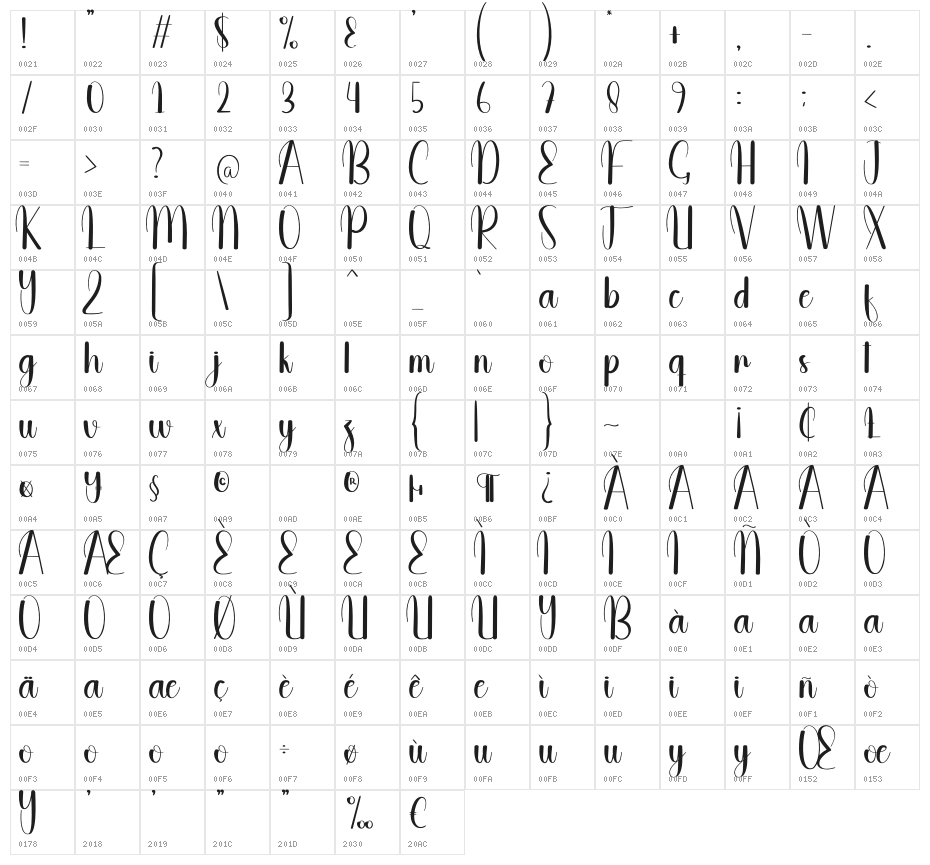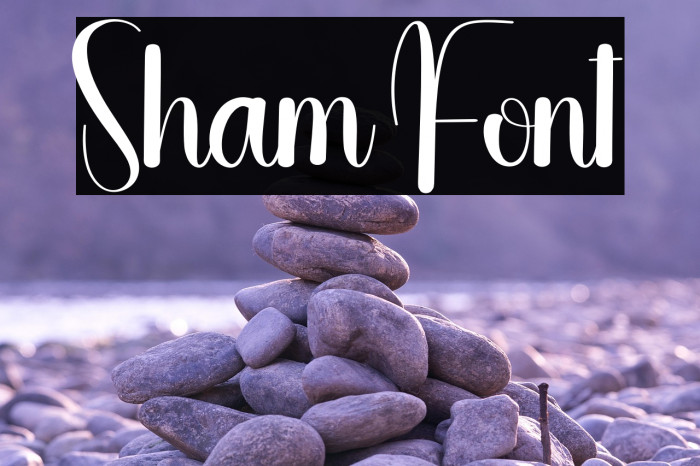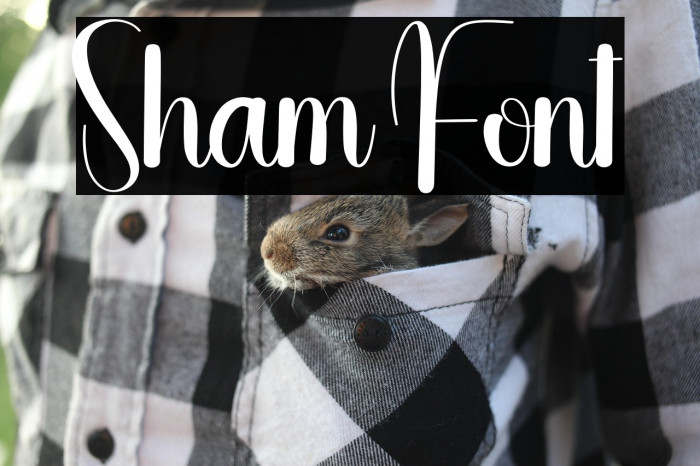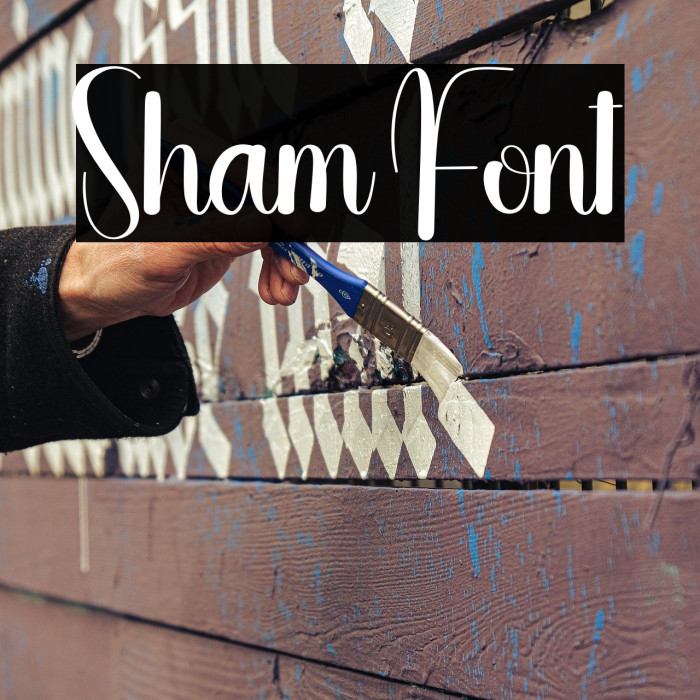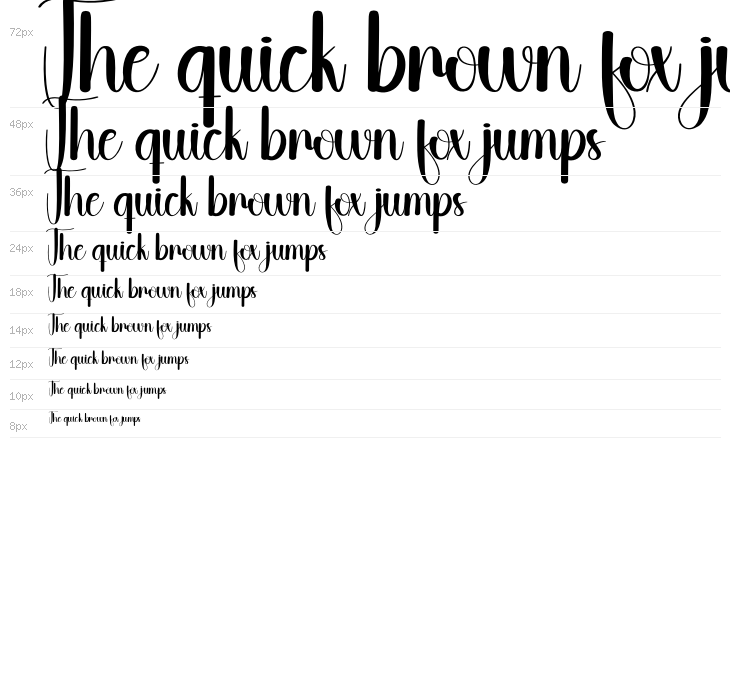
Sham Font
Sham Description
A playful, modern handwritten font with tall, narrow letterforms and a mix of thick and thin strokes, featuring high contrast and whimsical curves. The uppercase letters are particularly elongated and decorative, while the lowercase maintains a friendly, approachable style.
| Width | Condensed |
| Overall Style | Decorative, Modern, Playful |
| Use Case | Logos, Headlines, Invitations, Posters |
| Proposed Projects | Invitations, greeting cards, branding for creative businesses, posters, social media graphics. |